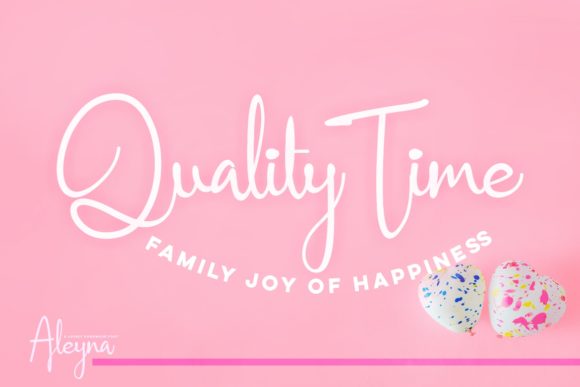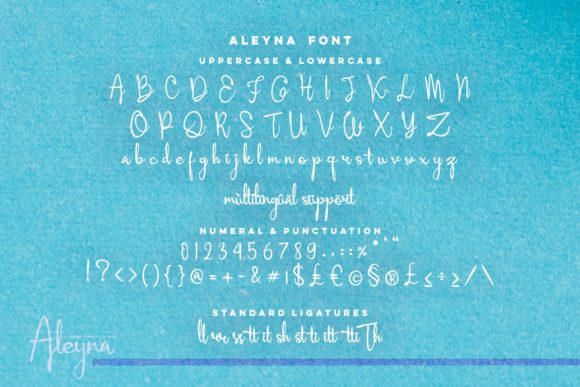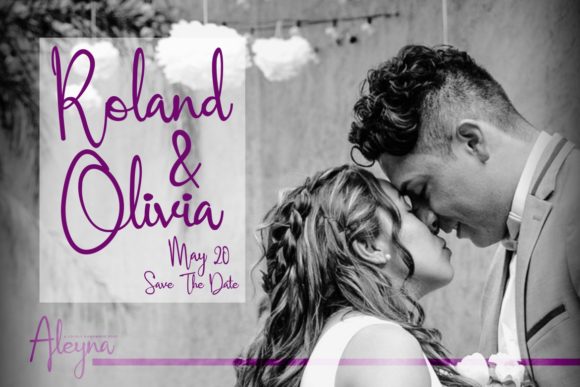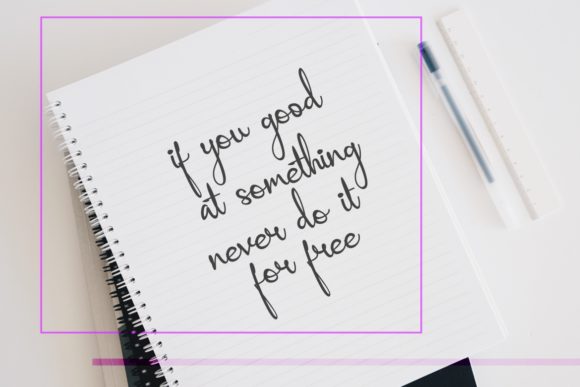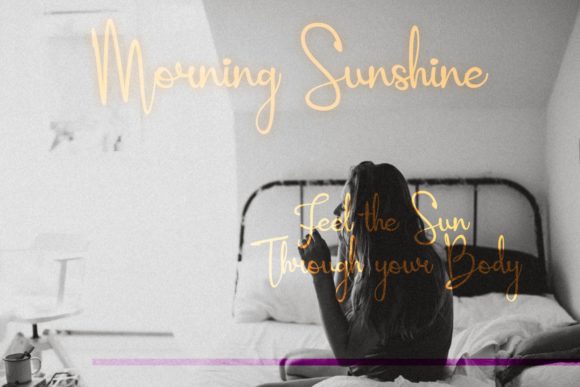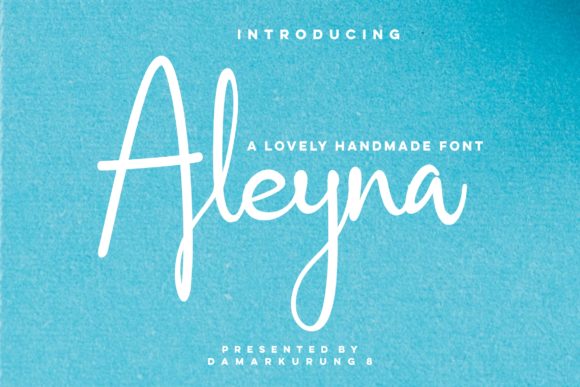
Introducing Aleyna Font: The Ultimate Handwritten Font for Designers and Crafters
Are you tired of using the same old fonts for your design projects? Look no further than Aleyna Font, a stunning handwritten font that is sure to elevate your designs to the next level. With its smooth curves and elegant feel, Aleyna Font is perfect for a wide range of printing techniques and design applications.
What Makes Aleyna Font So Special?
The Aleyna Font is a beautiful, handmade font that is designed to add a touch of personality and whimsy to any design project. Its smooth curves and flowing lines give it a unique and sophisticated feel that is sure to impress. Whether you’re a designer, crafter, or DIY enthusiast, Aleyna Font is the perfect choice for anyone looking to add a little extra something special to their work.
One of the best things about Aleyna Font is its versatility. This cute and elegant font can be used for a wide range of design applications, including:
• Logos: Create a custom logo for your business or brand with Aleyna Font.
• Magazines: Use Aleyna Font to add a touch of elegance and sophistication to your magazine layouts.
• Cover Albums: Create beautiful cover art for your music albums or playlists with Aleyna Font.
• Quotes: Add a touch of inspiration and motivation to your quote designs with Aleyna Font.
• Birthday Quotes: Create custom birthday quotes and cards with Aleyna Font.
• And much more: Aleyna Font can be used for any design project that requires a touch of elegance and sophistication.
Why Choose Aleyna Font?
There are many reasons why Aleyna Font is the perfect choice for designers and crafters. Here are just a few:
• Unique and eye-catching: Aleyna Font is a one-of-a-kind font that is sure to grab attention and make your designs stand out.
• Elegant and sophisticated: Aleyna Font has a smooth, flowing feel that is perfect for designs that require a touch of elegance and sophistication.
• Versatile: Aleyna Font can be used for a wide range of design applications, from logos and magazines to quotes and birthday cards.
Tips for Using Aleyna Font
Here are a few tips for getting the most out of Aleyna Font:
• Experiment with different sizes and colors: Aleyna Font looks great in a variety of sizes and colors, so don’t be afraid to experiment and find the look that works best for your design.
• Pair with other fonts: Aleyna Font pairs well with a variety of other fonts, so try combining it with other fonts to create a unique and interesting look.
• Use for headlines and titles: Aleyna Font is perfect for headlines and titles, where its elegant and sophisticated feel can really shine.
In conclusion, Aleyna Font is a stunning handwritten font that is perfect for designers and crafters looking to add a touch of elegance and sophistication to their work. With its smooth curves, elegant feel, and versatility, Aleyna Font is the perfect choice for a wide range of design applications. Whether you’re creating logos, magazines, quotes, or birthday cards, Aleyna Font is sure to elevate your designs to the next level.